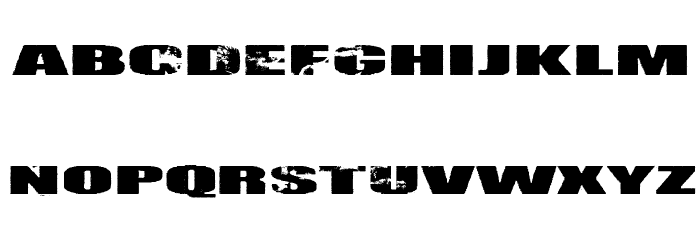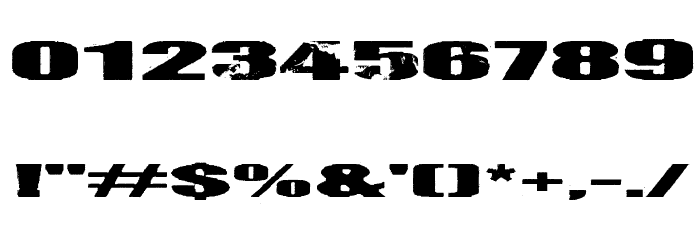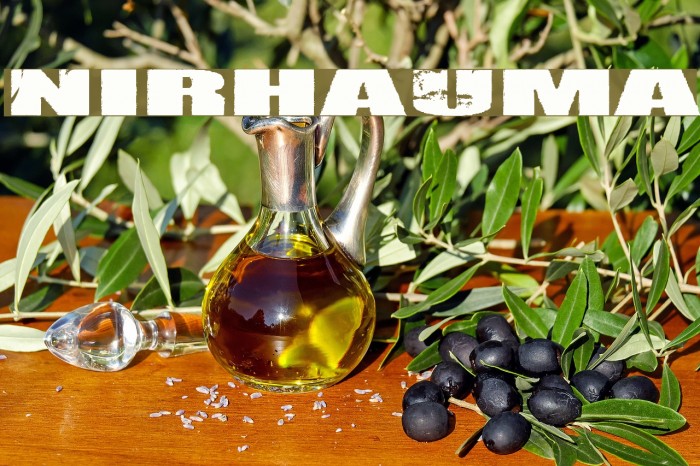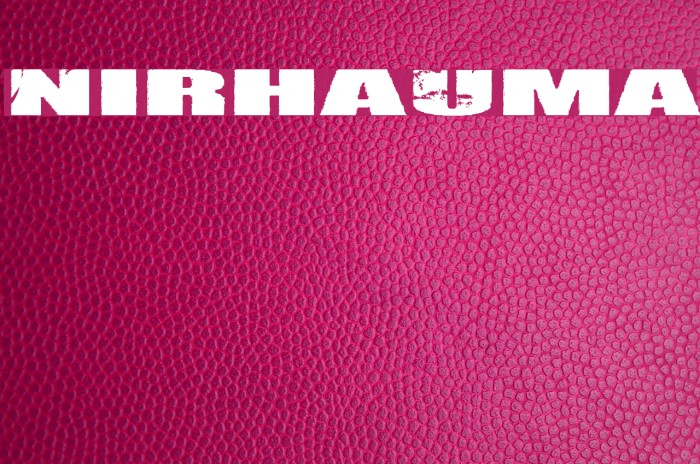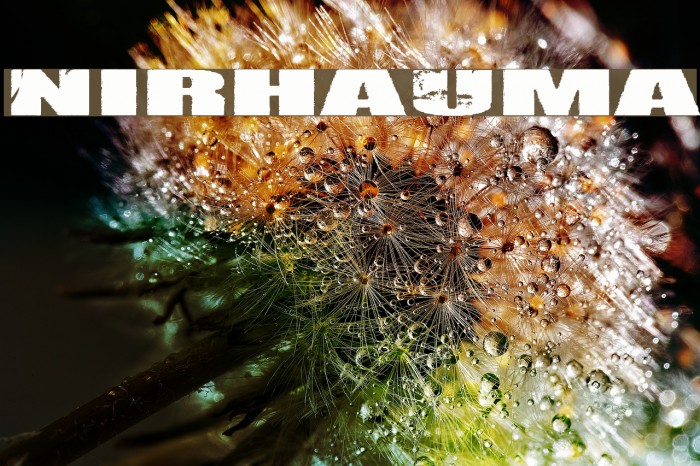
Nirhauma Font
This font features a bold, distressed style with a grunge effect, giving it a rugged and worn appearance. The characters are uppercase and numerals, with a consistent weight that emphasizes their boldness. The texture within each letter adds a unique, edgy feel, making it stand out for designs that require a strong, impactful look. The spacing between characters is relatively tight, enhancing the compact and robust nature of the font. This style is particularly suitable for projects that aim to convey a sense of toughness or urban grit.
A bold, distressed font with a grunge effect and tight spacing.
- Proposed Projects: Ideal for posters, album covers, streetwear branding, and any design needing a rugged, urban aesthetic.
- Character Spacing: Tight